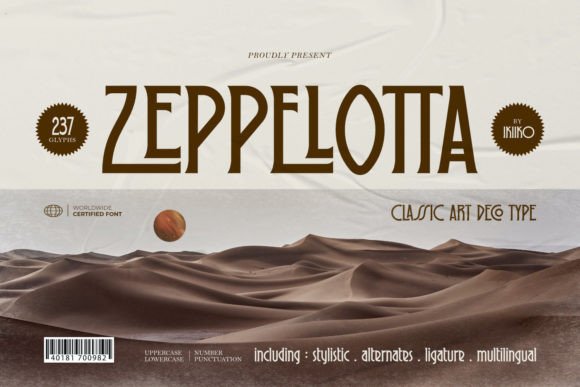
Are you yearning for an exquisite font that exudes an air of classicism and timeless elegance? Look no further than Zeppelotta, a captivating serif font inspired by the glamorous Art Deco era. This typographic gem, meticulously crafted by ikiiko, is not just a collection of letters; it's a gateway to a bygone era of sophistication and style.
Zeppelotta captivates with its bold geometric shapes, exuding a sense of modernity and grandeur. Its symmetrical design evokes harmony and balance, bringing order and structure to your words. The elaborate decorative elements, from extended lines to intricate ornaments, add a touch of opulence, elevating your text from ordinary to extraordinary.
Picture your designs adorned with Zeppelotta's refined presence. It's the perfect font for branding projects, logos, posters, invitations, and any design that demands a touch of sophistication. Let Zeppelotta transport you to a world of luxury and elegance, where your words take center stage.
But Zeppelotta is more than just a pretty face. It's also incredibly versatile, adapting seamlessly to a variety of design styles. Whether you're seeking a classic aesthetic or a more contemporary feel, Zeppelotta effortlessly blends in, adding a touch of timeless beauty to any project.